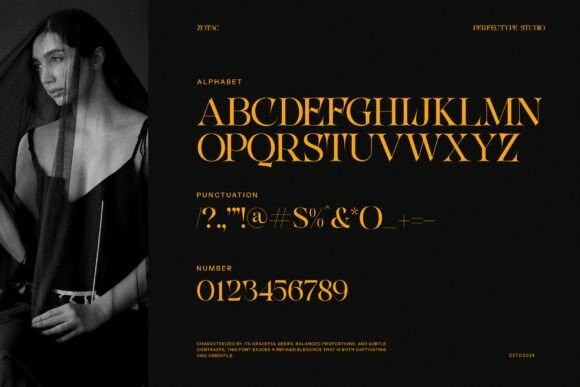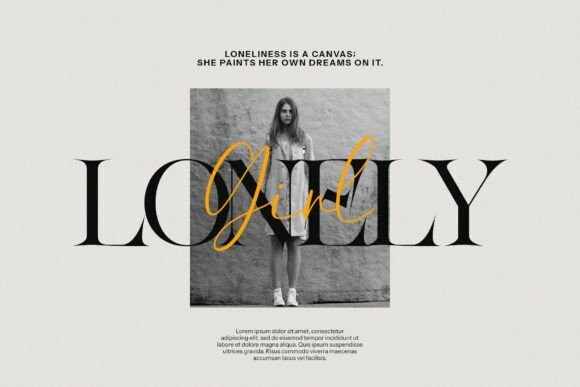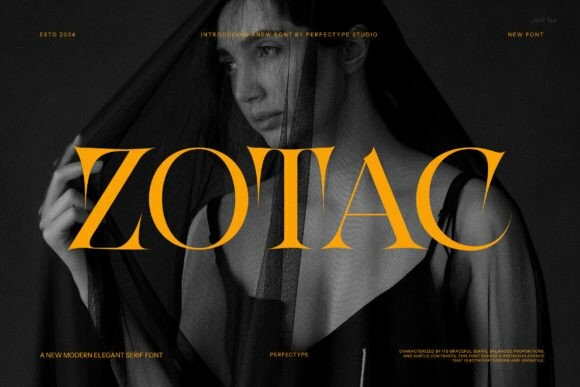
Zotac Font
Designer: Perfectype
Zotac Font is a tattoo-style font with serif features. It’s bold and decorative, making it perfect for designs that need a strong and unique look. The letters have sharp edges and artistic details, giving it a traditional tattoo feel with a classic touch.